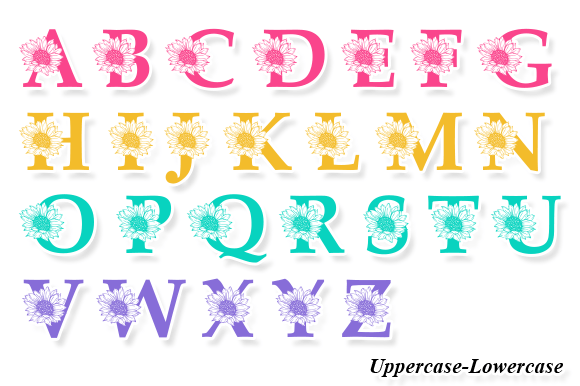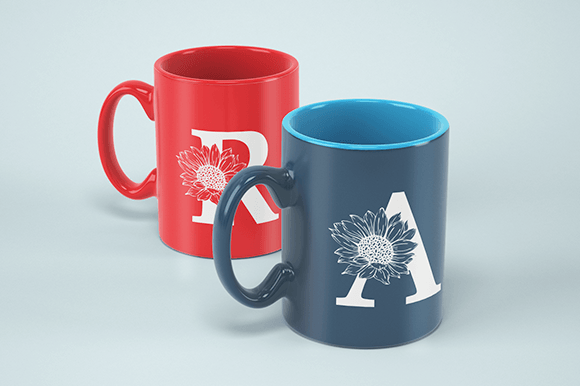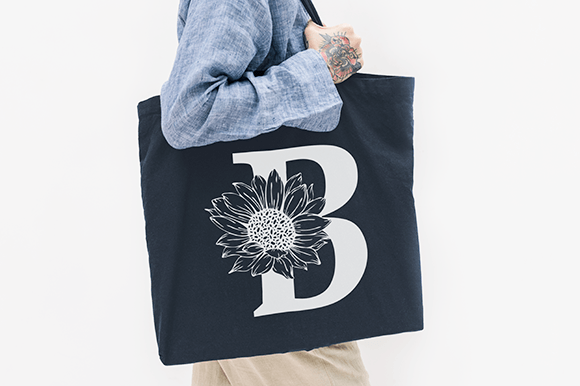
The Cameron Monogram Font: A Designer’s New Best Friend
I’ll never forget the time I was working on a branding project for a fashion startup, and I just couldn’t find the right font to capture their unique vibe. The client wanted something modern, stylish, and Instagram-worthy, but everything I tried seemed either too bland or too over-the-top. That’s when I stumbled upon the Cameron Monogram Font, and let me tell you, it was love at first sight! 💕
• ✨ Unique and original design that’s sure to turn heads
• ✅ Highly versatile and adaptable to various design projects
• 💥 Excellent for logotypes, headlines, and titles
• 🎨 Works beautifully with both digital and print designs
While the Cameron Monogram Font is an amazing addition to any design project, there are a few things to keep in mind:
• ⚠️ Some users might find the font a bit tricky to read in smaller sizes, so it’s best to use it for headlines or titles rather than body text.
• 🤔 The font’s stylistic alternates and glyphs might require a bit of experimentation to get the hang of, but trust me, it’s worth it!
The Cameron Monogram Font was created with the goal of providing a unique and stylish solution for designers looking for a modern, Instagram-worthy font. Inspired by the world of fashion and luxury, the font’s designer aimed to create a typeface that exudes sophistication and elegance. Whether you’re working on a branding project, a fashion editorial, or a social media graphic, the Cameron Monogram Font is sure to make a statement.
Q: Is the Cameron Monogram Font suitable for body text?
A: While the Cameron Monogram Font is amazing for headlines and titles, it might not be the best choice for body text due to its decorative nature. However, feel free to experiment and see what works best for your design!